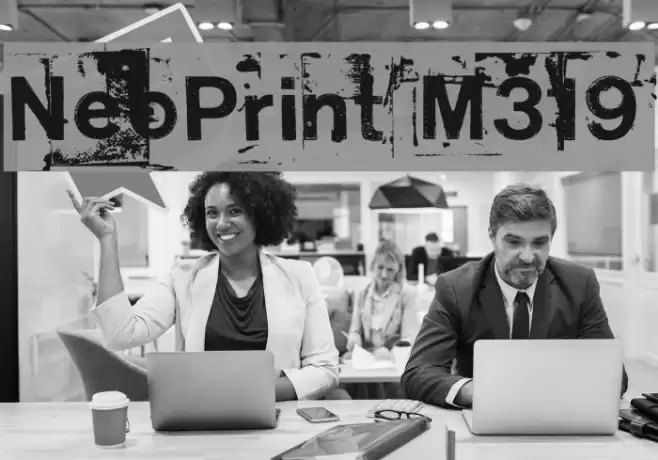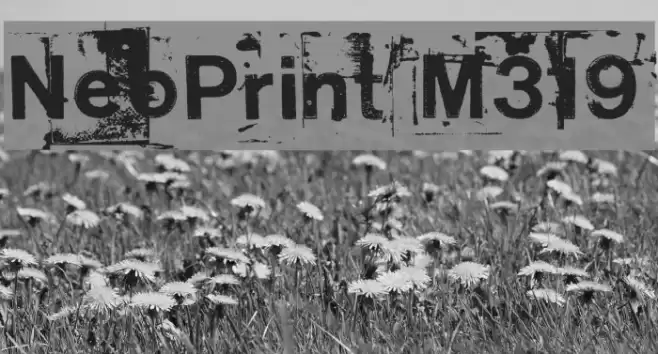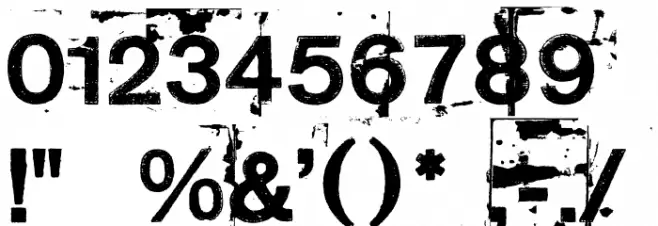
NeoPrint M319 Font
NeoPrint M319 Description
This font exhibits a distressed, grunge aesthetic with a bold and impactful presence. Each character appears as if it has been stamped or printed with a rough texture, creating an edgy and raw look. The uppercase and lowercase letters, as well as numbers and special characters, maintain a consistent style that emphasizes irregularity and imperfection. The texture adds a unique character to the font, making it stand out in any design. Its boldness ensures readability while the distressed elements add a layer of visual interest.
A bold, distressed font with a grunge aesthetic and rough texture from Distorted Eroded fonts.
- Proposed Projects: Ideal for album covers, posters, urban-themed designs, and any project requiring a gritty, raw look.